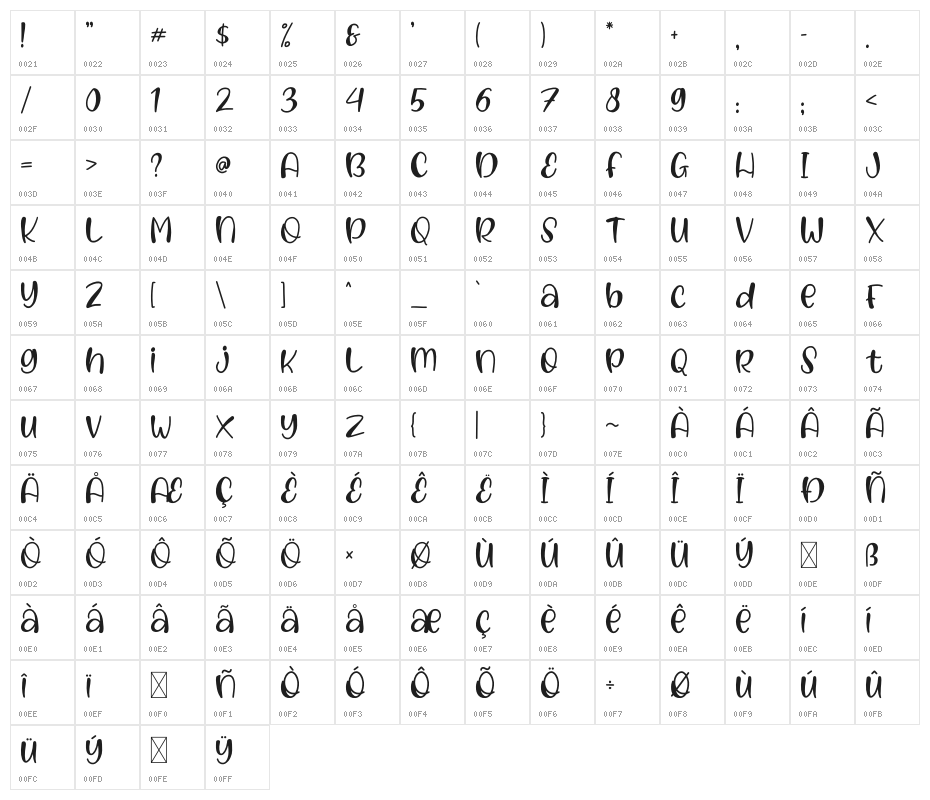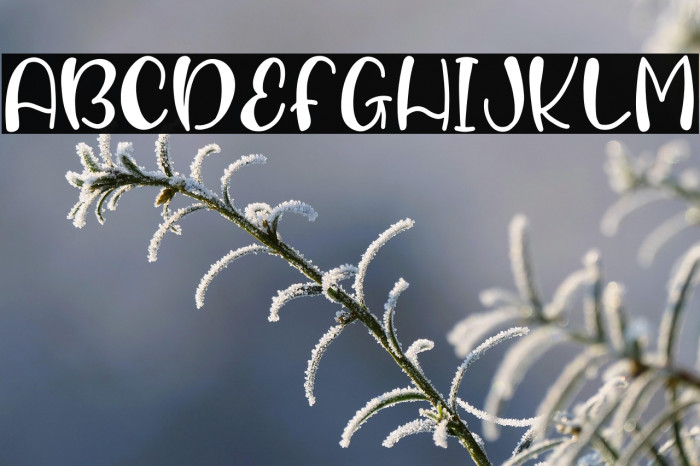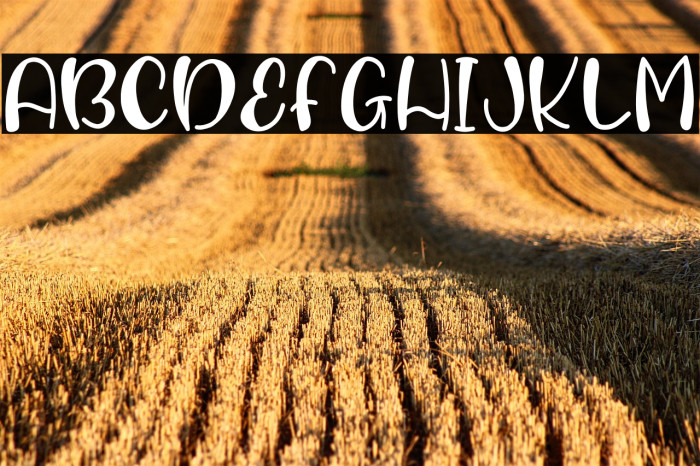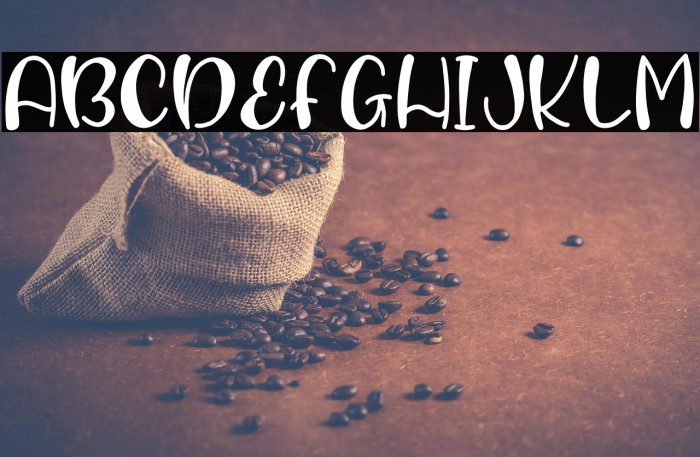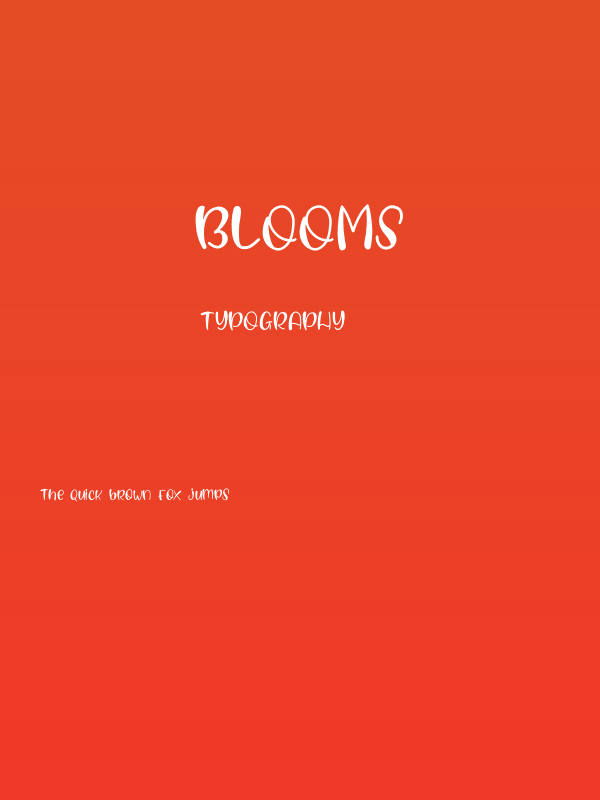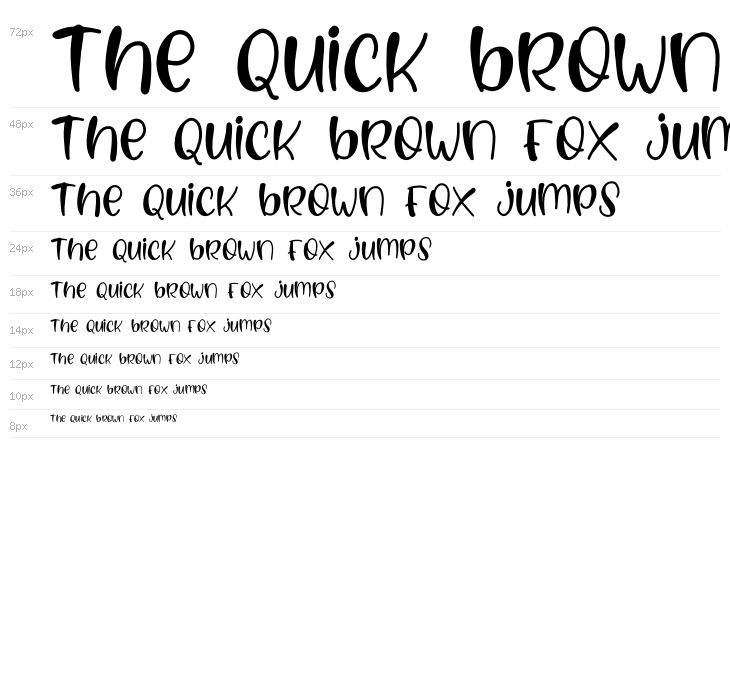
Blooms Font
Blooms Description
This font features a playful and whimsical style with a handwritten appearance. The characters are bold and rounded, giving a friendly and approachable feel. The strokes are smooth and consistent, with a slight slant that adds a dynamic touch. The uppercase and lowercase letters maintain a cohesive look, while the numbers and special characters are equally expressive. The overall design is lively and energetic, making it suitable for projects that require a personal and informal tone.
Overall StylePlayful
Use CaseLogos, Headlines, Informal Text
Proposed ProjectsIdeal for greeting cards, children's books, playful branding, and social media graphics.